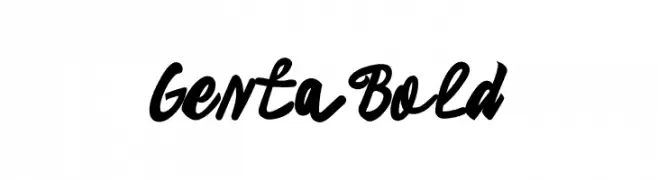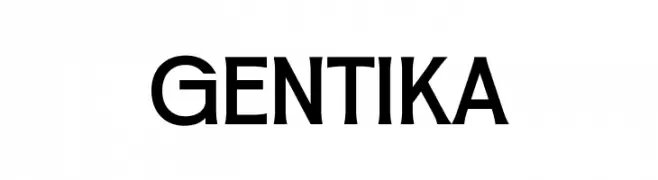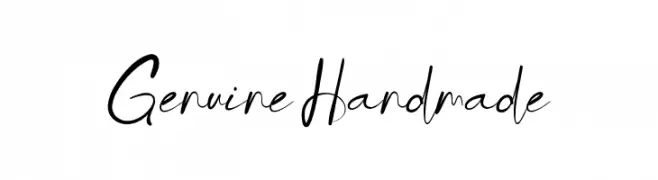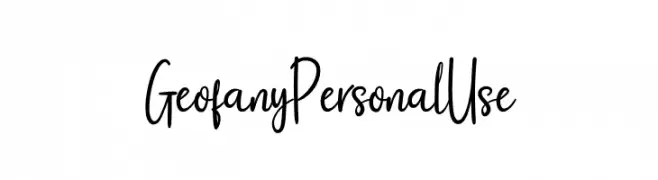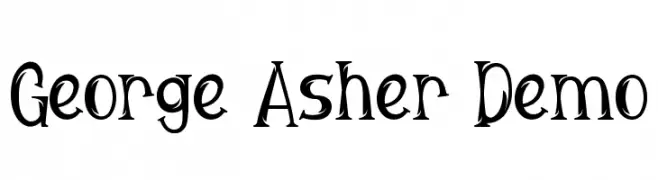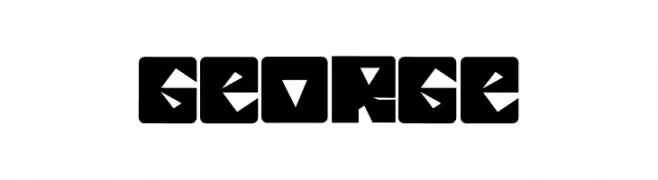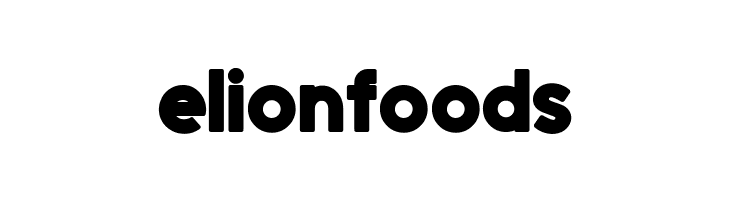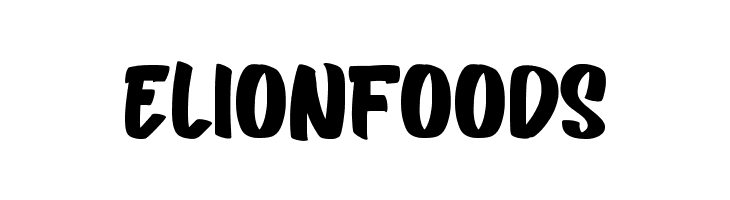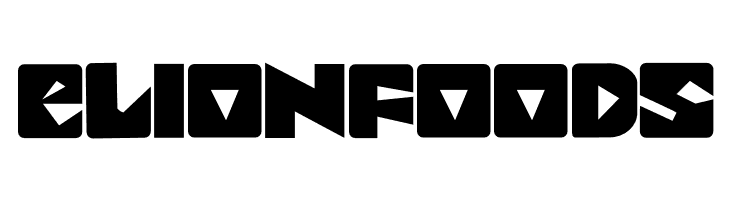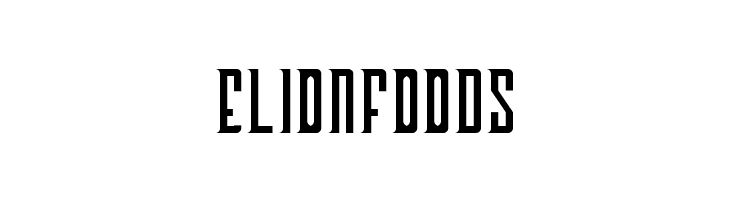
A whimsical script font with flowing, interconnected letterforms and dynamic contrast.
A bold, modern sans-serif font with geometric influences and consistent stroke widths.
A bold, dynamic script font with fluid, cursive strokes.
A modern, clean sans-serif font with a geometric touch.
A genuine, handmade cursive font with elegant, flowing characters.
A playful handwritten font with a casual and dynamic style.
A bold, geometric font with angular shapes and a modern style.
A bold, artistic font with dynamic serifs and moderate contrast, perfect for creative projects.
A bold, handwritten-style font with a playful and energetic appearance.
A bold, geometric font with a modern and futuristic aesthetic.